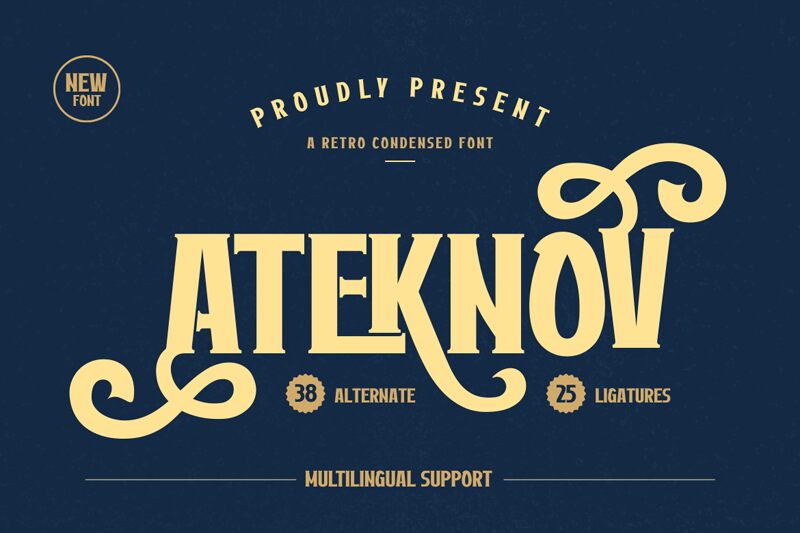
Ateknov, a bold and condensed display font crafted by the talented Twinletter, exudes a captivating retro aesthetic. Its striking letterforms, with their distinct angular edges and robust presence, command attention and evoke a sense of industrial chic. This versatile typeface seamlessly blends modern sensibilities with a nostalgic flair, making it a compelling choice for a wide array of design projects.
Ateknov's condensed width and bold weight lend themselves to impactful headlines, eye-catching logos, and dynamic branding materials. Its retro-inspired styling effortlessly complements vintage-inspired designs, while also lending itself to contemporary applications that seek to infuse a touch of retro-futuristic charm. Whether adorning product packaging, crafting attention-grabbing social media content, or elevating the visual identity of a cutting-edge brand, Ateknov's unique personality is sure to leave a lasting impression.